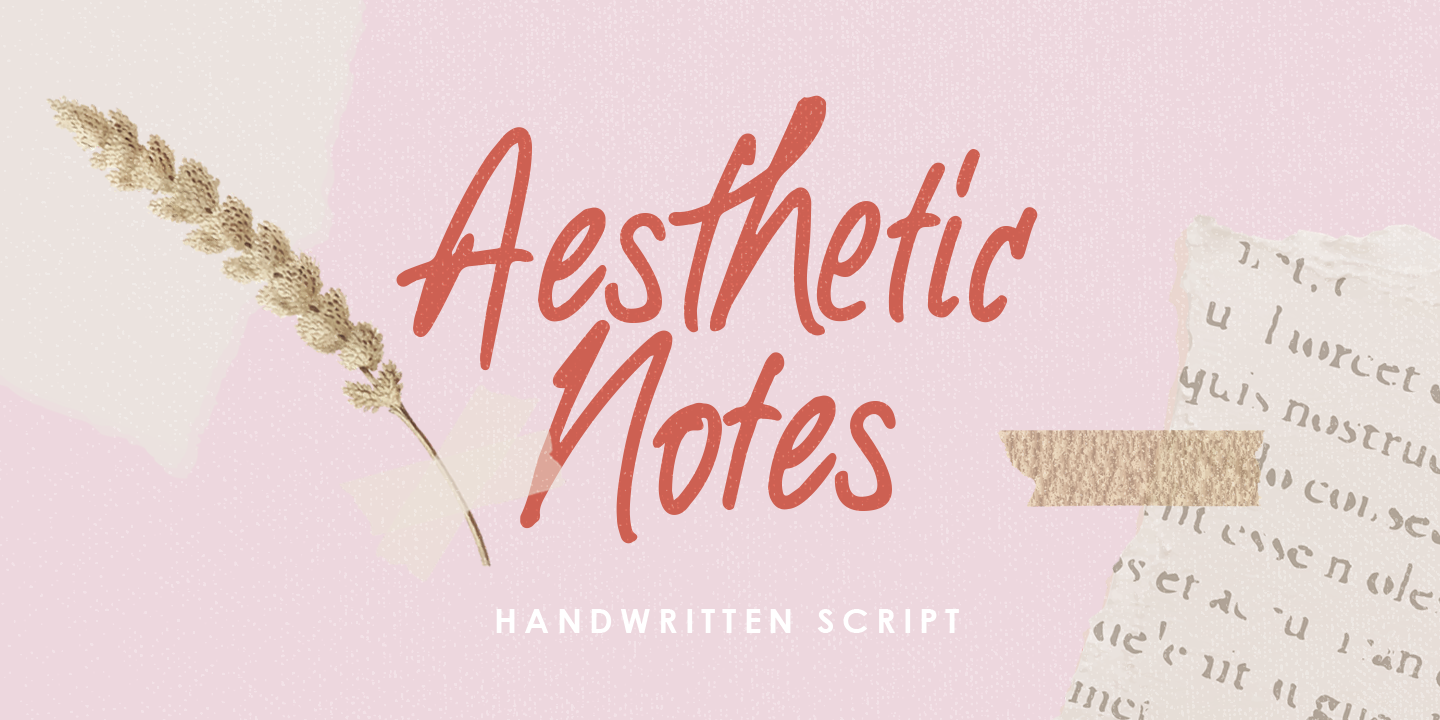
Aesthetic Notes
Looking for a font that exudes elegance and sophistication? A beautiful handwritten script that adds a touch of refinement to any design? Search no more! We've got just the thing: a charming, high-end font that will make your brand stand out from the crowd.
This stunning font is perfect for creating eye-catching headings, memorable logos, attention-grabbing ads, and even stylish packaging. Its flowing lines and elegant curves are reminiscent of classic calligraphy, but with a modern twist that makes it perfect for contemporary designs. Use it to add a touch of luxury to your website or social media branding, or as a finishing touch for printed quotes and other promotional materials.
With its versatility and timeless appeal, this font is sure to impress even the most discerning audience. Whether you're looking to create a sense of nostalgia, sophistication, or simply make a statement, this beautiful handwritten script is the perfect choice. So why settle for ordinary when you can have extraordinary? Try out this incredible font today!